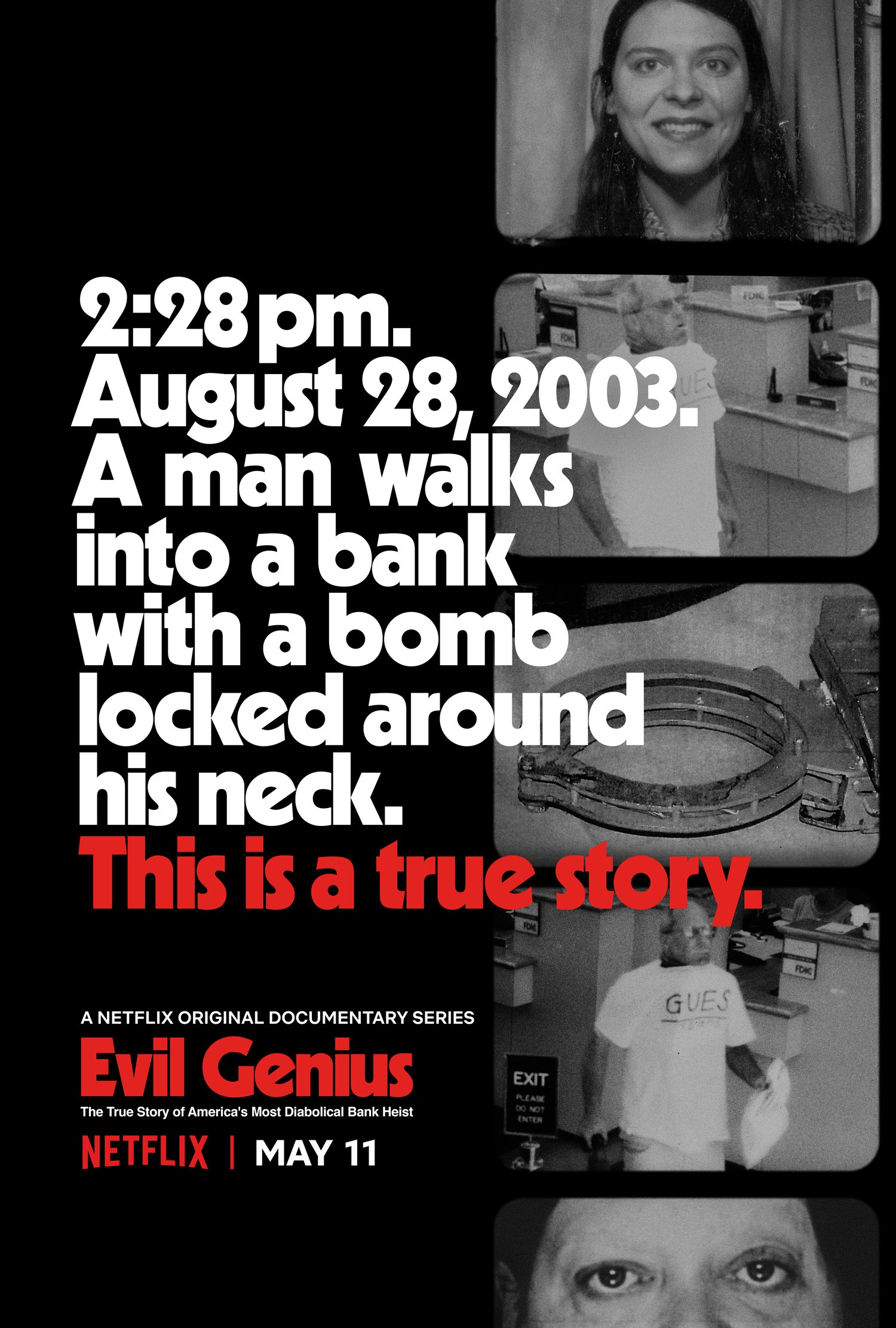
Evil Genius (TV series) Font
DocumentaryEvil Genius: The True Story of America’s Most Diabolical Bank Heist is a true crime docuseries that explores the story behind the "pizza bomber" case in which a bank robber strapped a bomb to a pizza deliveryman in 2003.
The poster features a bold and geometric sans-serif font called Kabel Black, designed by German designer Rudolf Koch and first released by Klingspor foundry in 1927. If you are looking for a free alternative, Kabel Heavy by OPTIFont is available for download in the Fonts Used Section.